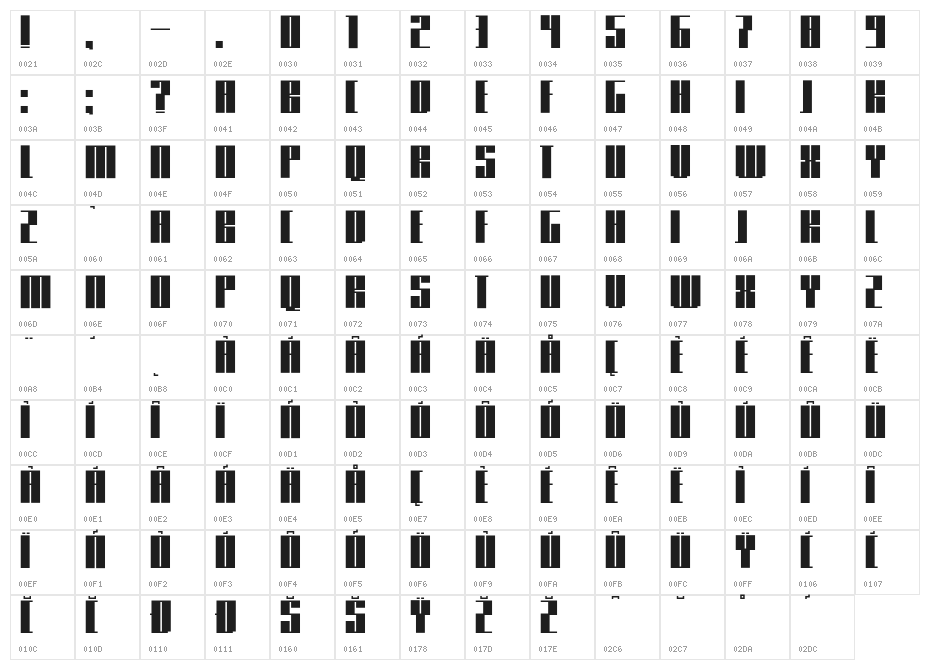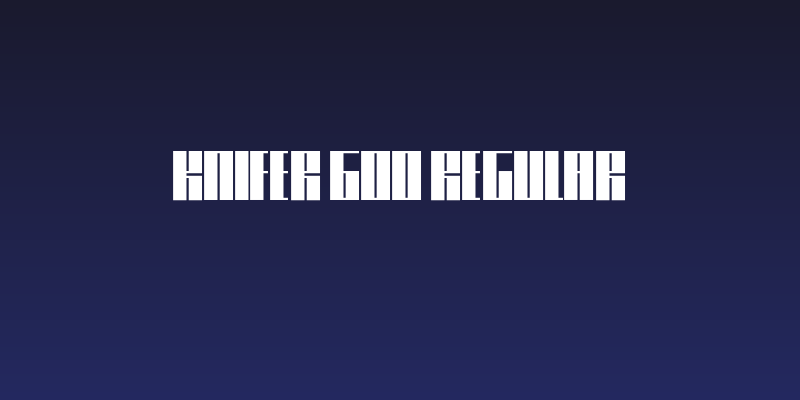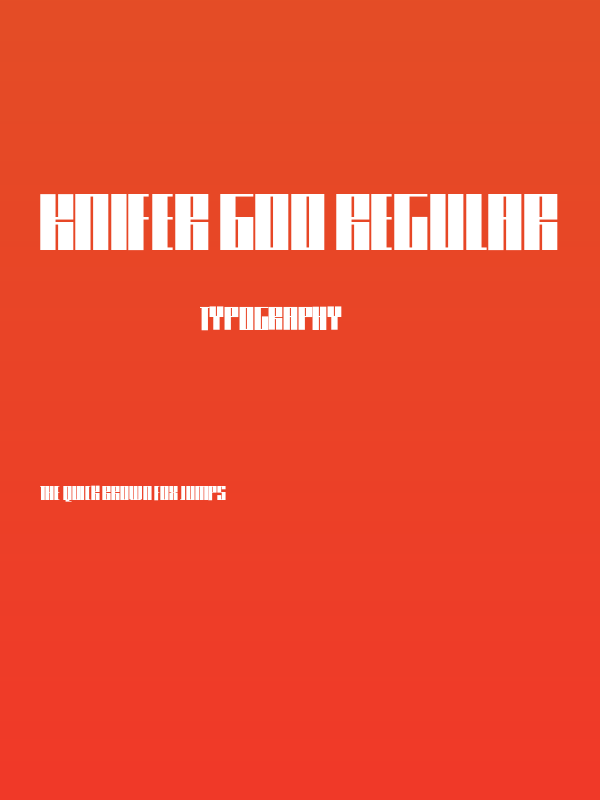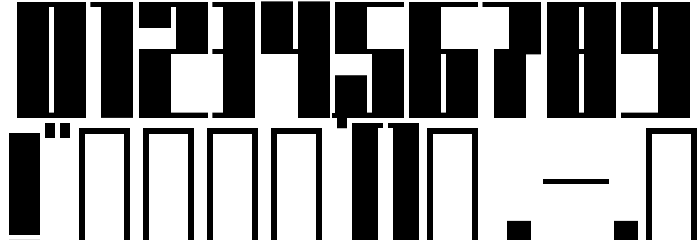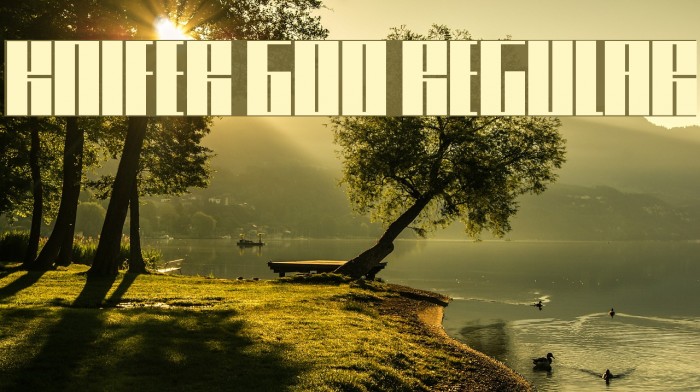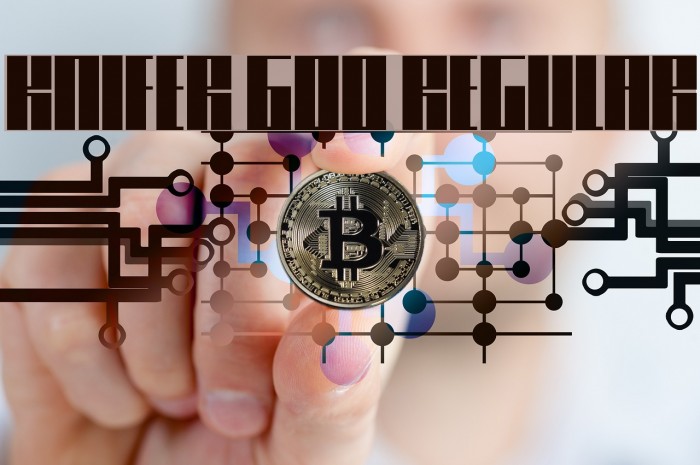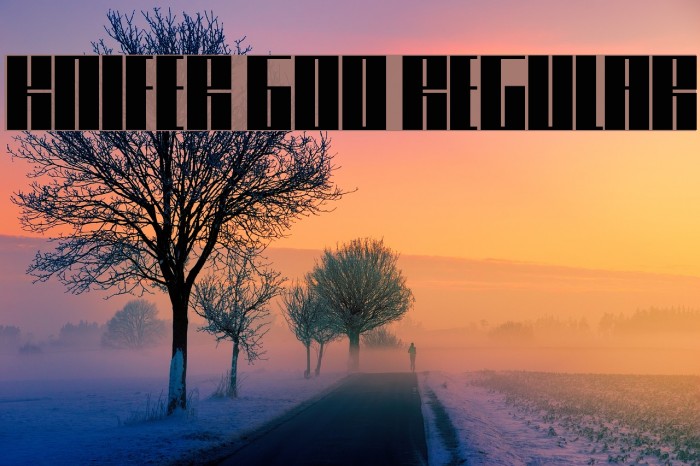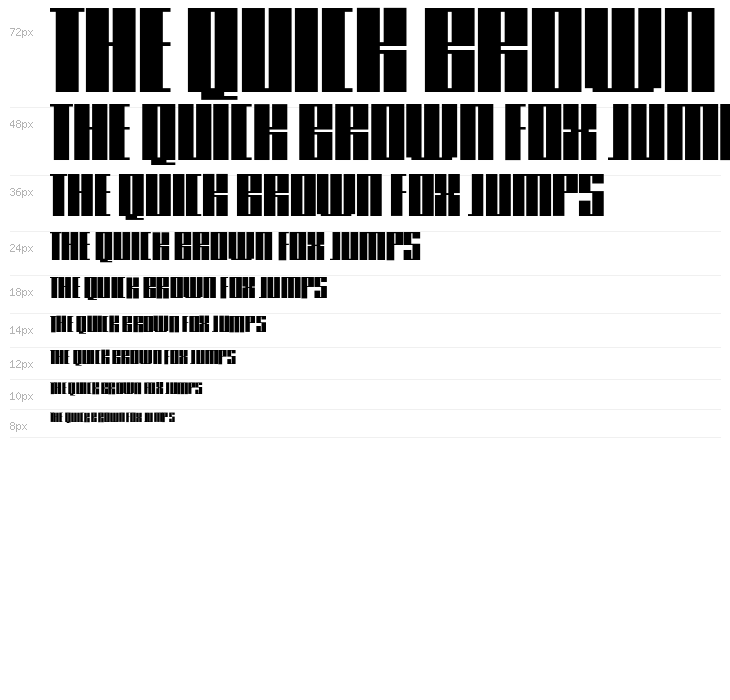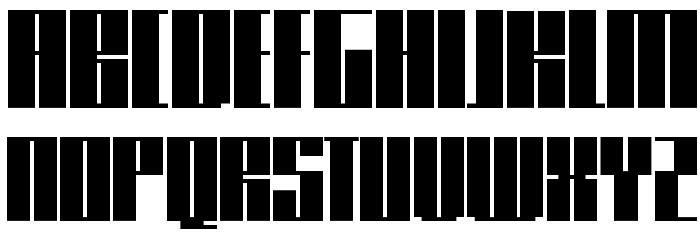
Knifer 600 Regular Font
Knifer 600 Regular Description
This font features a bold, geometric design with a strong emphasis on vertical and horizontal lines, creating a blocky and robust appearance. The characters are uniformly wide, giving a monospaced feel, though they are not strictly monospaced. The uppercase and lowercase letters maintain a consistent height, contributing to a cohesive and structured look. The numerals and special characters follow the same design principles, ensuring uniformity across all glyphs. This font's striking and modern aesthetic makes it suitable for impactful and attention-grabbing designs.
| Proposed Projects | Ideal for posters, logos, headlines, and any design requiring a bold, modern statement. |